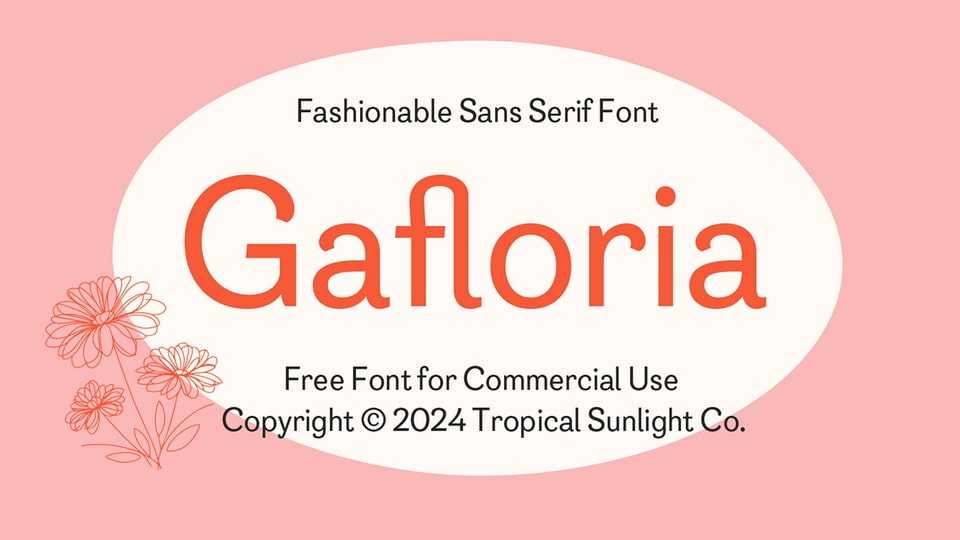
Download Gafloria font, a modern sans serif typeface designed for fashion magazines. With its clean lines and smooth curves, it exudes beauty and elegance.
Designer: Tropical Sunlight Co.